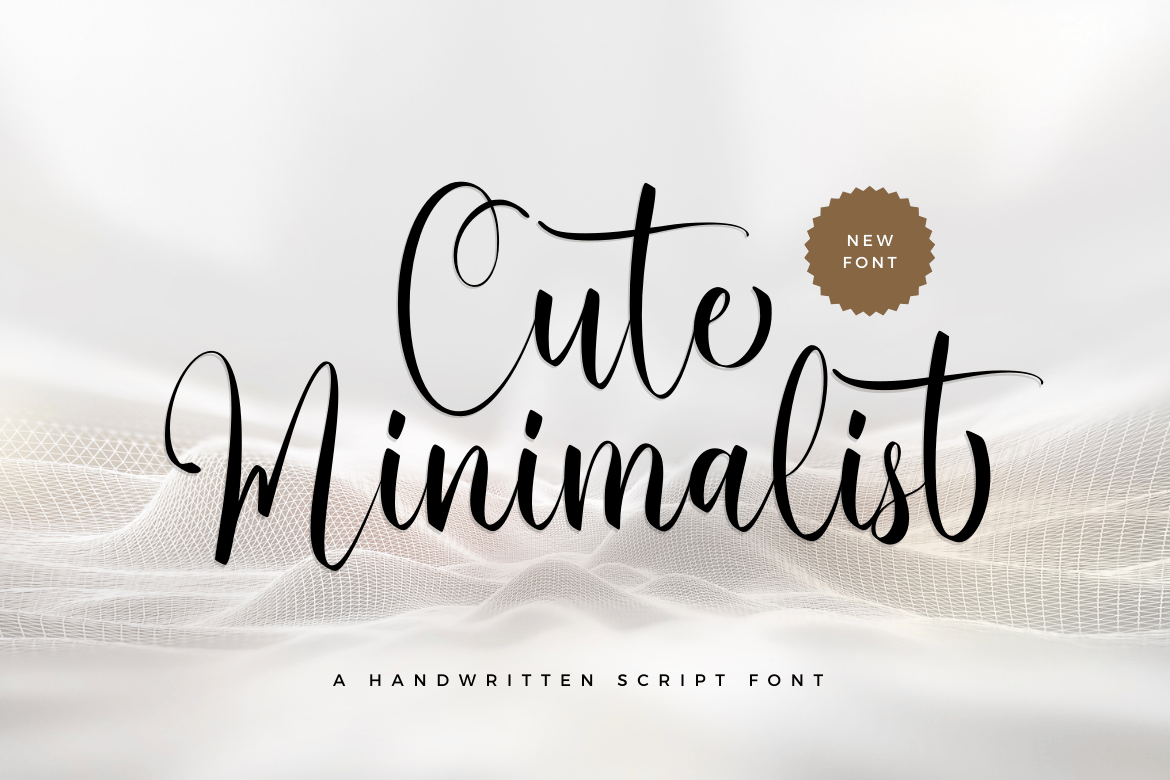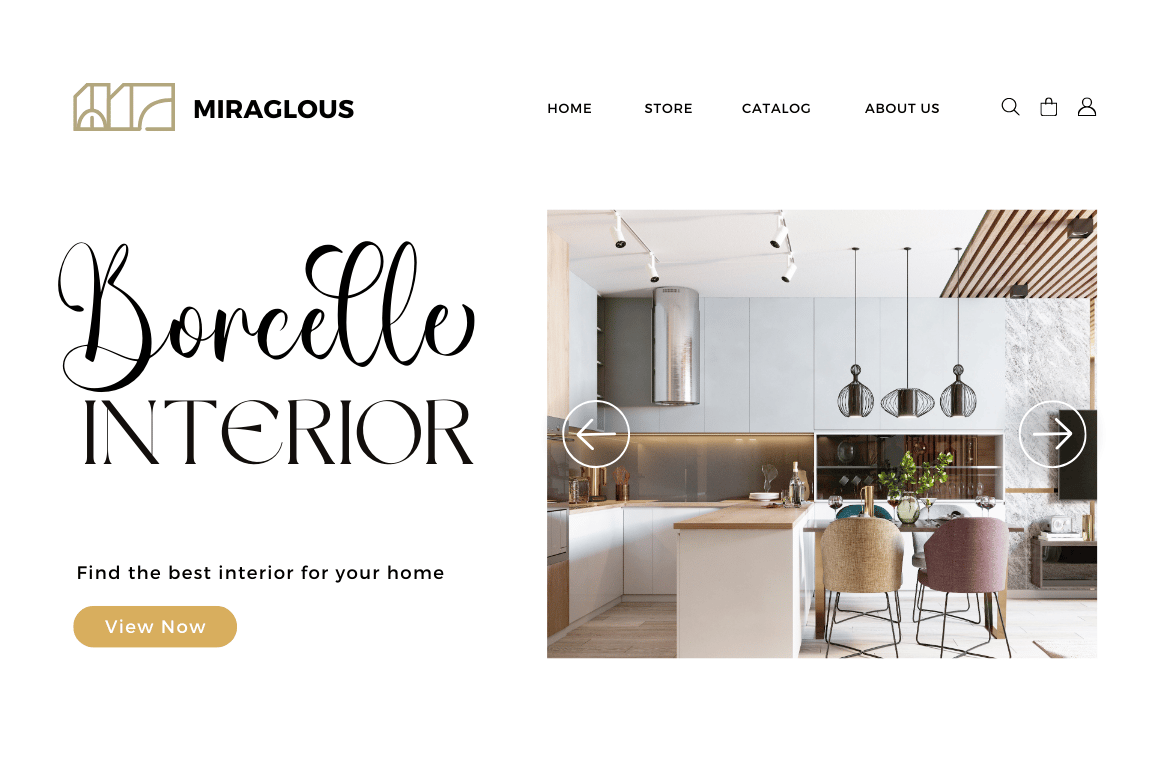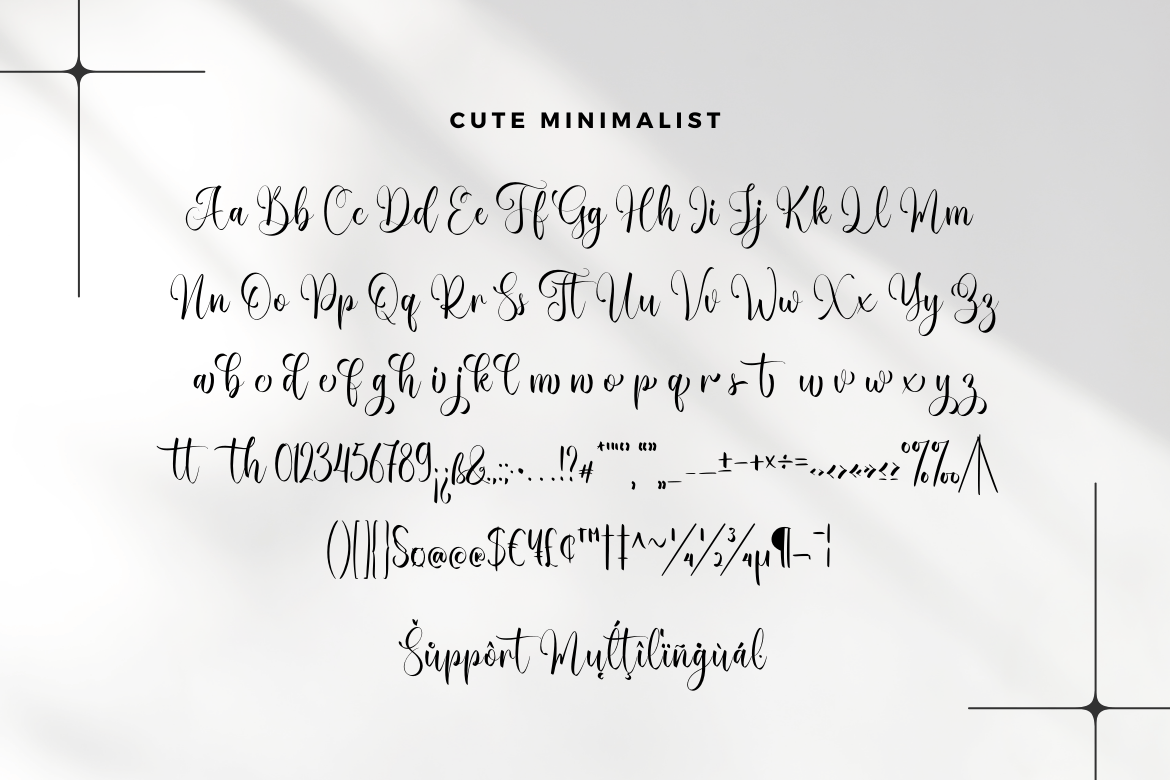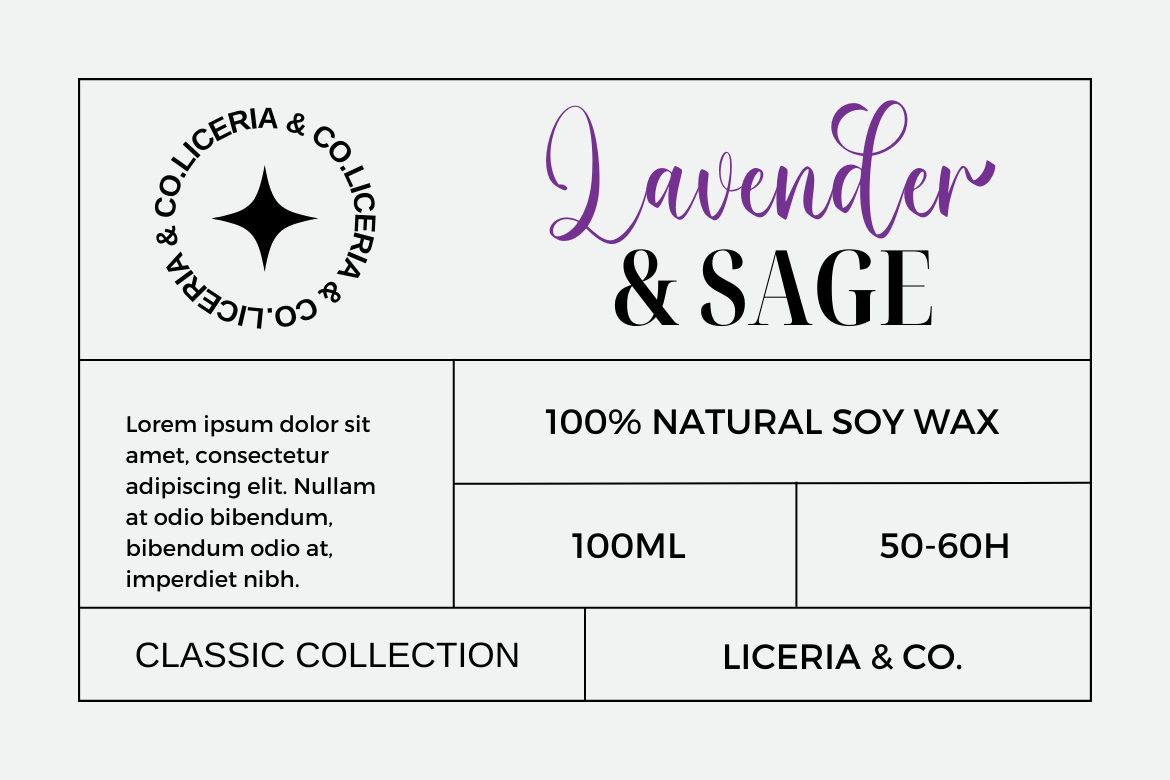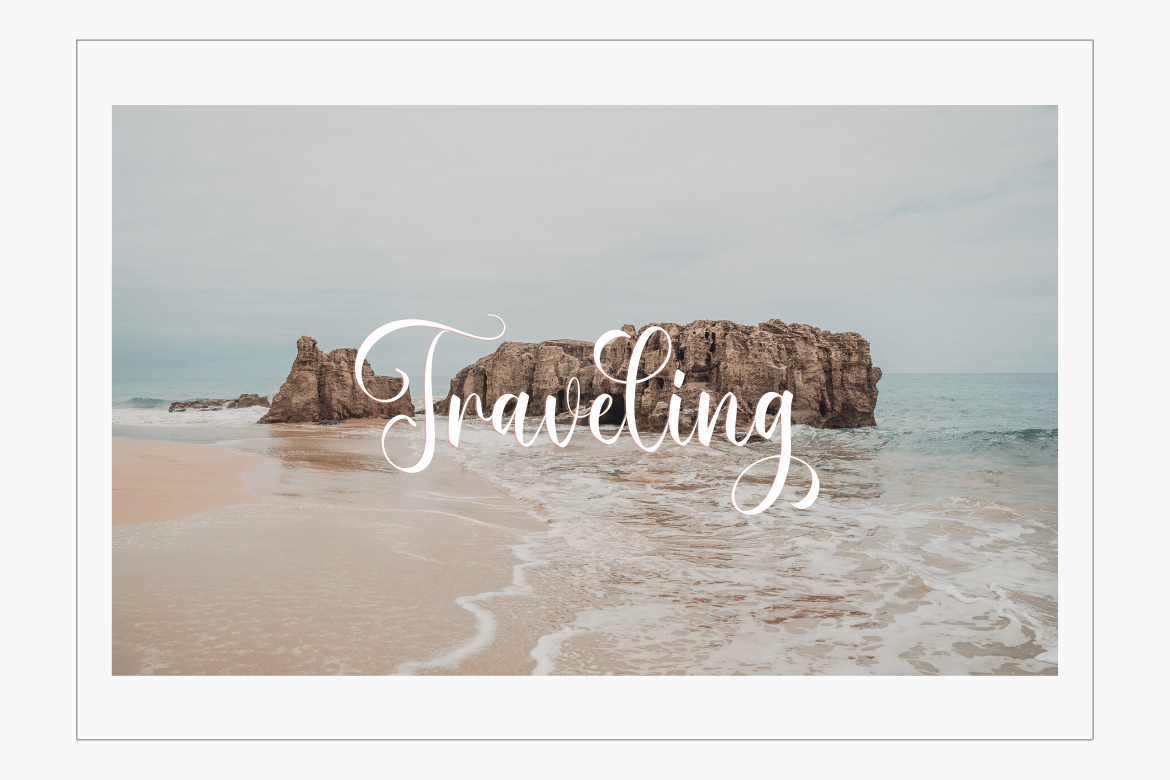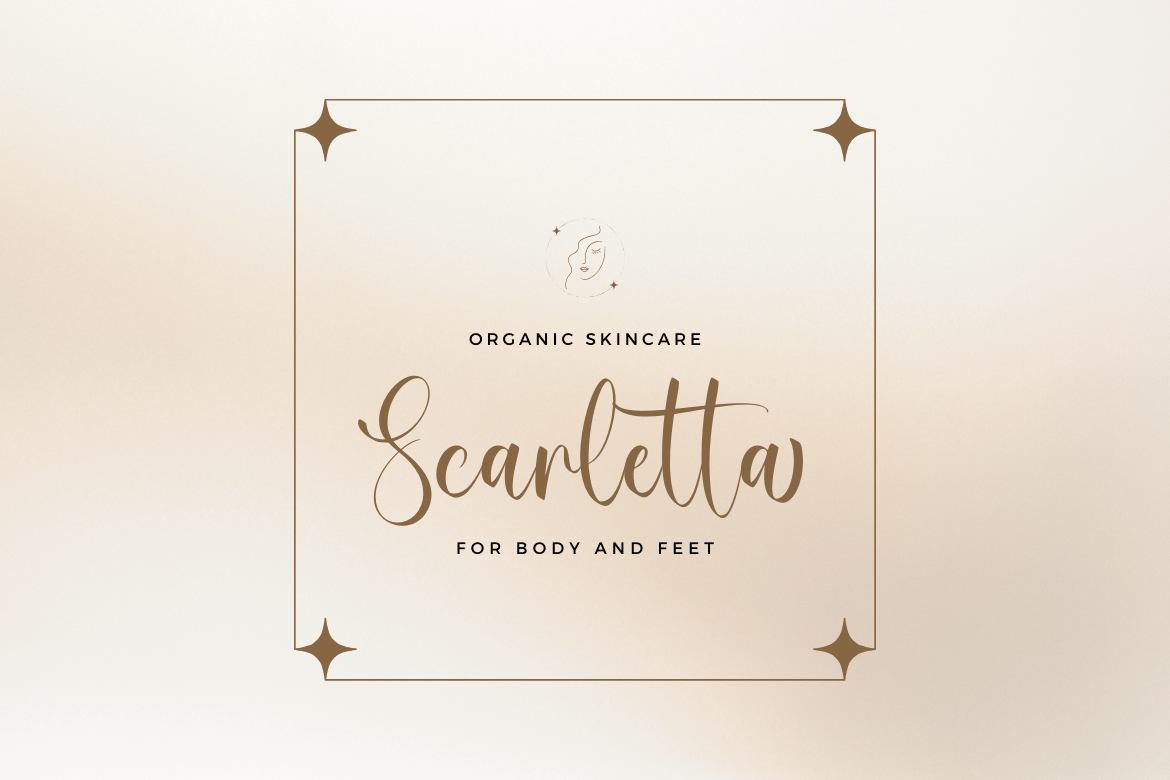
Cute Minimalist Script Font
Introducing, Cute Minimalist is a stylish script font suitable for your design project needs, such as; wedding themes, valentine’s themes, social media posts, quotes, overlays on images, tagline logos, posters, print needs, website banners, and more.
- A set of uppercase and lowercase glyphs
- Number, symbol, and punctuation
- Some alternates and ligatures